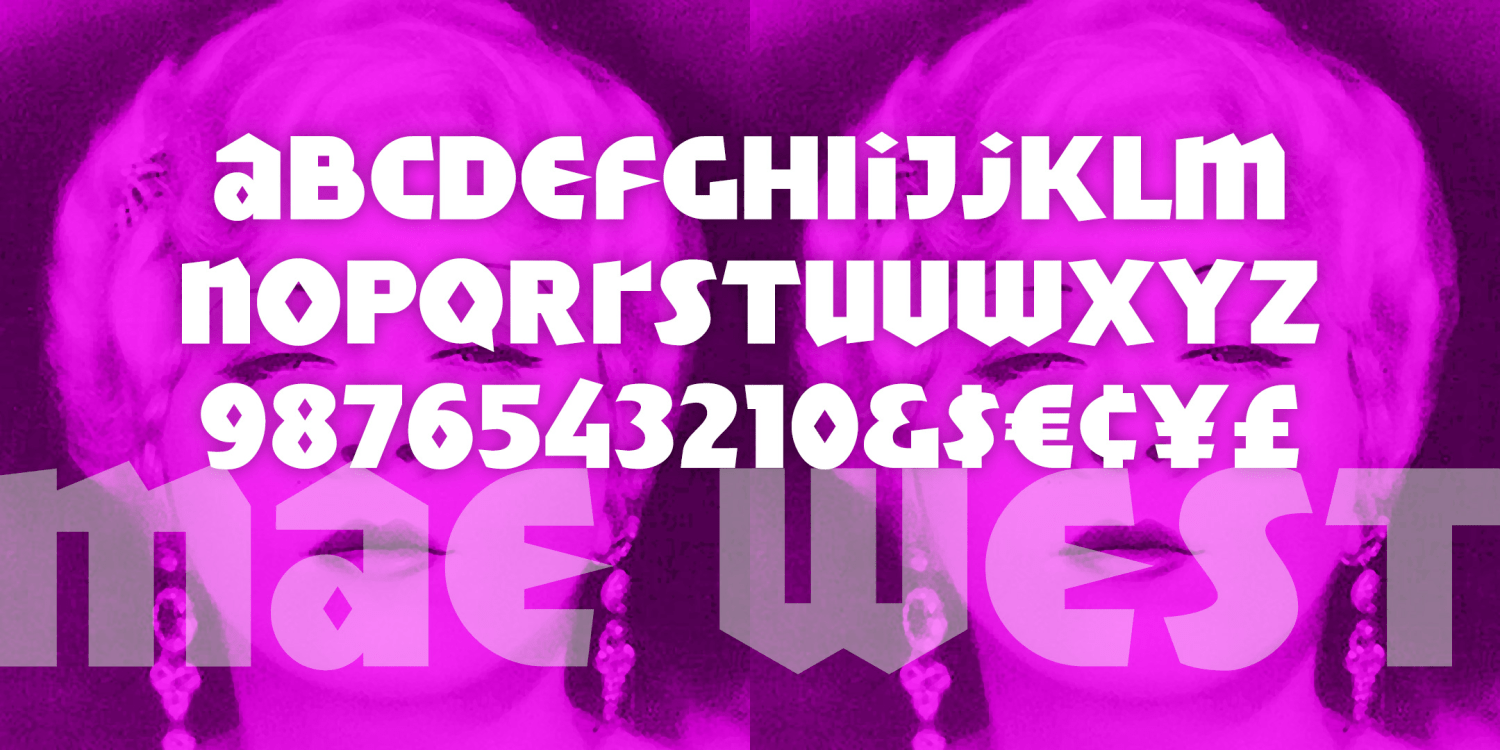
Mae West Regular
About Mae West Regular
MAE WEST is big, bold, and brassy, like its namesake, the stage and screen sex symbol of the early 20th century. My font is full-figured and fun, a mixture of upper- and lowercase letterforms. It was inspired by a photo of a theatre marquee from the premiere…